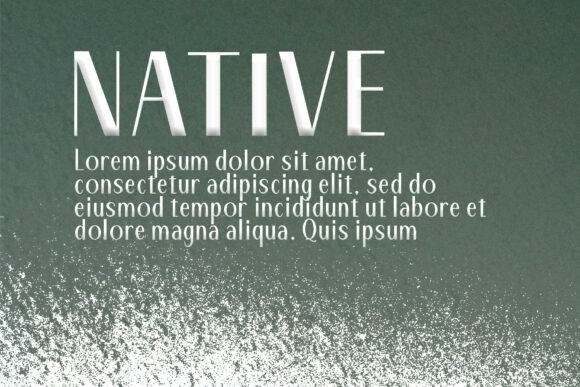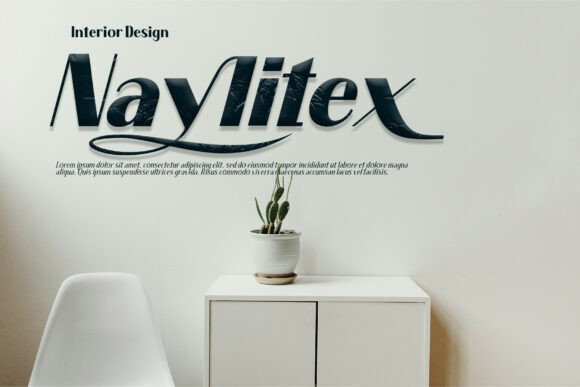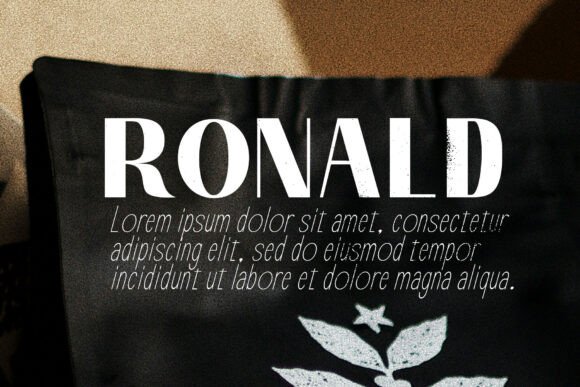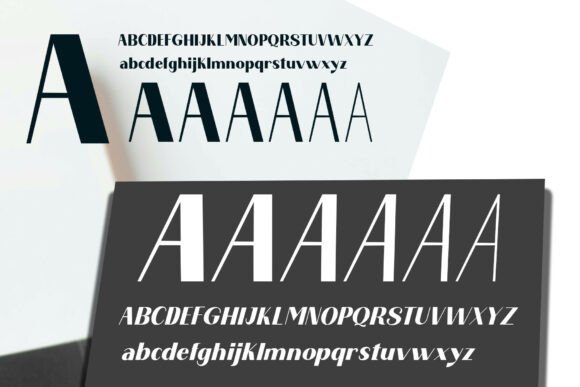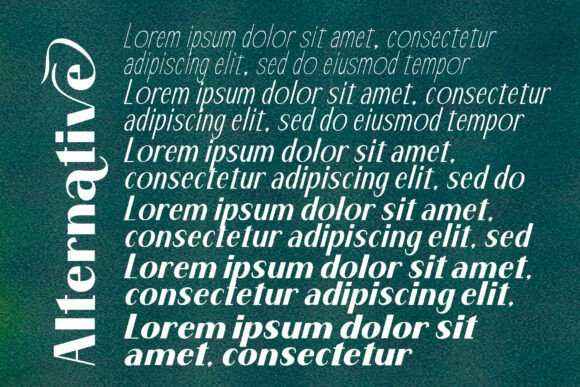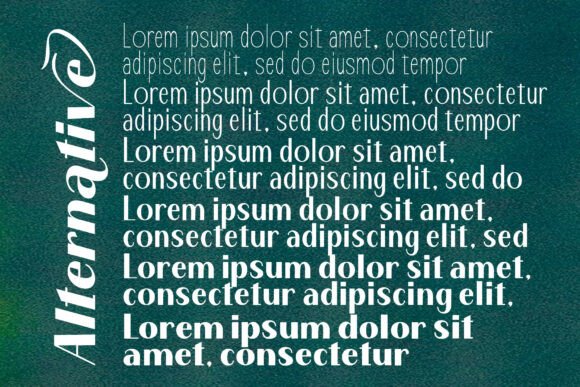
Introduction to Megabot Font
Remember that moment when a well-designed font can elevate an entire project? You’re brainstorming ideas, trying out different layouts, and suddenly, the perfect typography brings everything together. For designers, finding the right font can be a game-changer, and that’s exactly where the Megabot Font comes in – a versatile, modern sans serif font that’s sure to breathe new life into your creative project.
Whether you’re working on a high-quality graphic design project or need a reliable design resource, the Megabot Font has got you covered. Its clean lines, dynamic italics, and extensive character set make it an ideal choice for designers seeking a fresh, contemporary look. Plus, with its sleek design, you can easily use it on a transparent background or as a standalone element in your design.
What sets the Megabot Font apart is its unique balance of style and functionality. Available for free download, this high-quality font offers a wide range of variations, from upright to inclined styles, giving you the creative freedom to experiment and push the boundaries of typography. In this article, we’ll delve into the world of Megabot Font and explore its many features, making it an invaluable resource for designers of all levels.
Key Features of Megabot Font
- High-quality vector design for a wide range of creative projects, ensuring a consistent and professional look.
- Includes a transparent background, allowing for easy customization and layering in design compositions.
- Comes in a range of sizes, from 100px to 1000px, and can be easily scaled up or down to suit various design needs.
- Features a high-resolution design, with a minimum resolution of 300 DPI for crisp and clear display on various devices.
- Unique, bold, and futuristic design style, perfect for creating eye-catching and modern designs for various creative projects.
Honest Review: Megabot Font
I recently stumbled upon the Megabot Font and I must say, it’s been a game-changer for my creative projects. The font is a high-quality design resource that’s perfect for adding a touch of futuristic flair to any design.
What works well: ✨ The Megabot Font is incredibly versatile and can be used for a variety of design elements, from logos to typography. It’s also available as a free download, which is a huge plus for designers on a budget.
Some notable features include:
- A transparent background that makes it easy to use with different backgrounds and designs
- A wide range of weights and styles to choose from, making it easy to customize to your needs
⚠️ One limitation I’ve noticed is that the font can be a bit overwhelming if used in excess. It’s a bold font, after all, so it’s best used in moderation.
Overall, I’m really impressed with the Megabot Font. It’s a high-quality design resource that’s perfect for designers who want to add a touch of futurism to their creative projects. I’d highly recommend it to anyone looking for a new font to try out.
Tips for Getting the Most Out of Megabot Font
For optimal results, use the Megabot Font in combination with other design elements, such as images and graphics. You can also experiment with different font sizes and colors to achieve a unique design look.
The Megabot Font is suitable for various design projects, such as social media graphics, presentations, logos, and infographics. You can also use the Megabot Font for creative projects, such as branding and advertising materials.